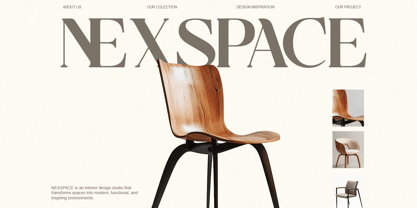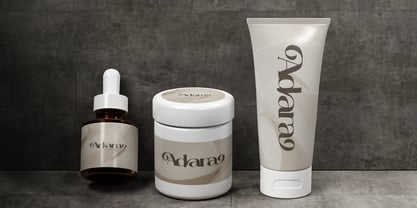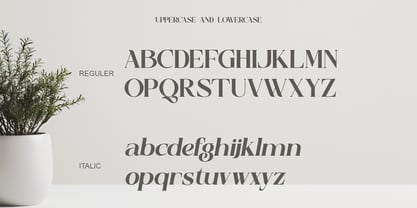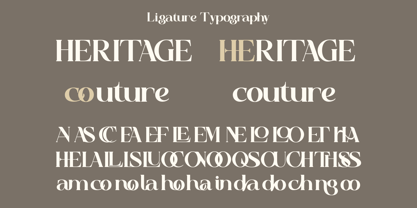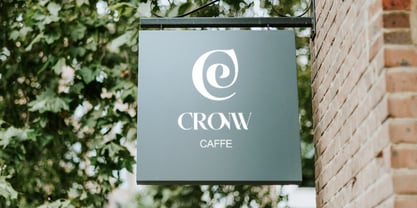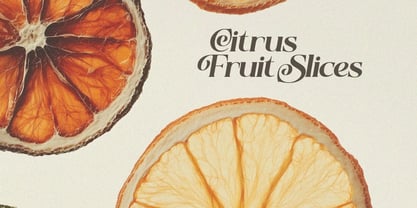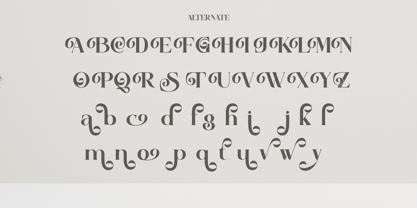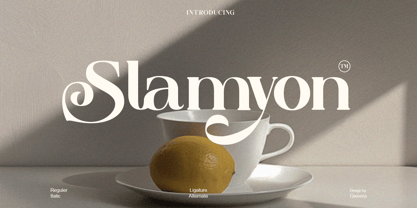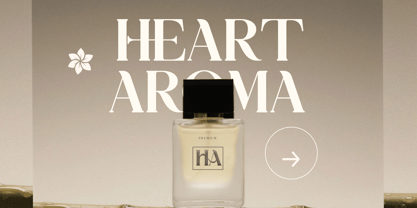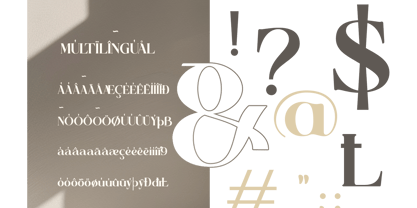
Slamyon
by Qweera Studio
The Slamyon Font Family was designed by Idhham Cholid Rikzano Yahya and published by Qweera Studio. Slamyon contains 2 styles and family package options. More about this family
Slamyon is a modern elegant swash serif featuring smooth curves and refined contrast. Designed for branding and editorial typography, it delivers sophisticated serif styling with modern elegance. With alternates, ligatures, and multilingual support, Slamyon offers flexible typography for both print and digital applications. Ideal for designers seeking elegant luxury serif typography. Features Swash alternates Ligatures Multilingual support Professional kerning Elegant contrast Specifications Language Support: Western, Central Europe Features: Alternates, Ligatures, Swash Recommended For Luxury branding, editorial typography, packaging design, fashion identity, boutique branding.